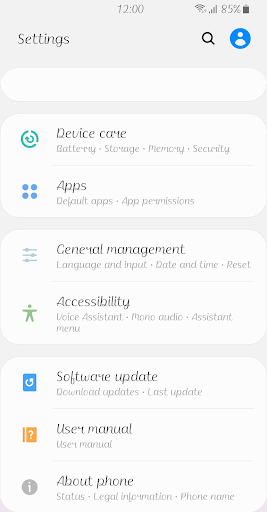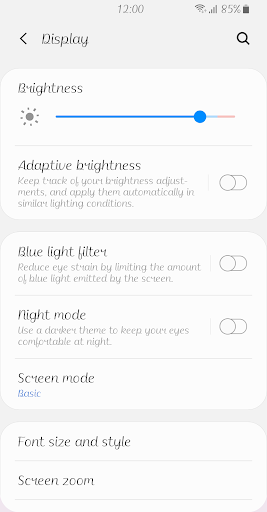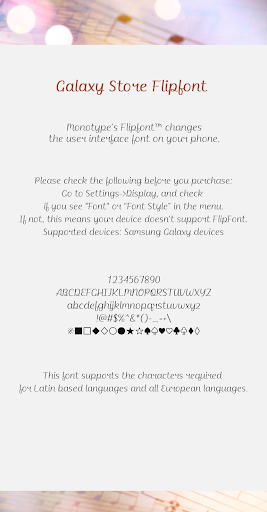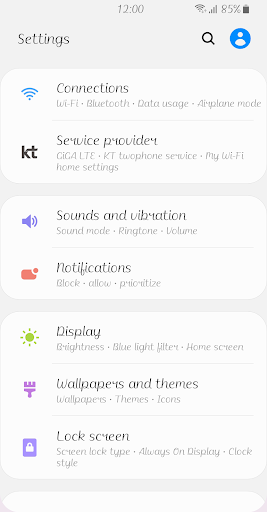
Fine Ballade
It is a script typeface that feels comfortable to use.
The thickness of the strokes of the letters can be seen to change with movement, and the finish of the strokes is thin and smooth.
The even and comfortable appearance and calm posture convey a peaceful atmosphere.